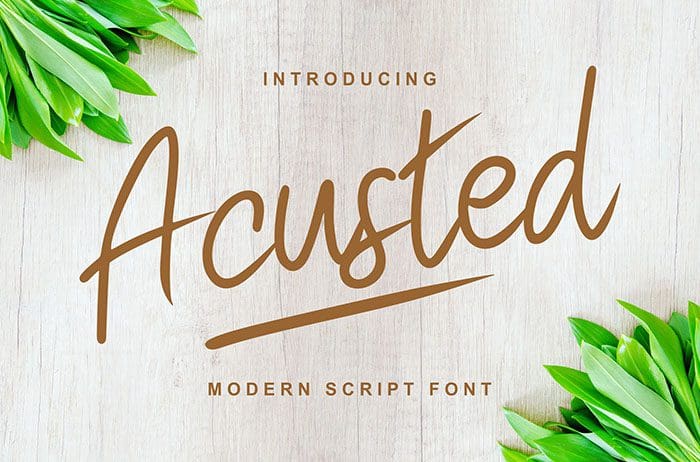
Acusted Script Font
Acusted Script Font, its own unique style to any design project. Use this gorgeous and unique font to bring any DIY project to life. Thanks to Vunira Studio for sharing this font! Take a look at this portfolio for more of his stunning fonts.